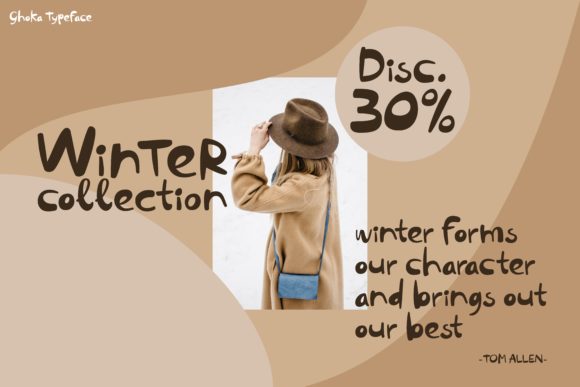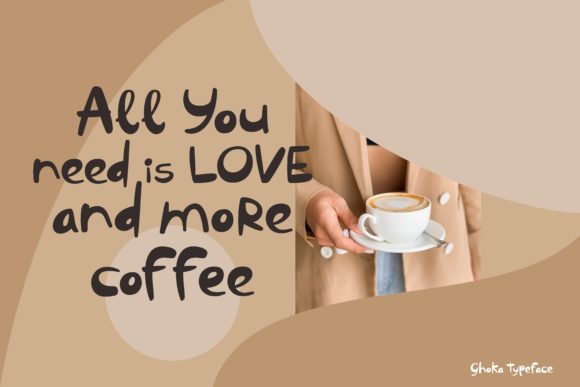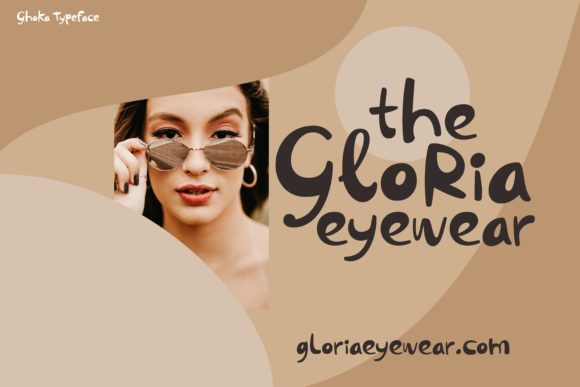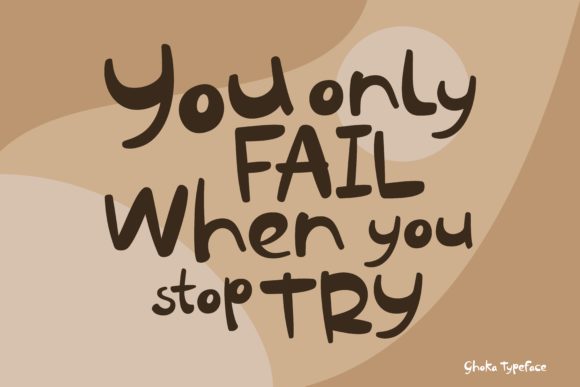
Gokha Font
About Gokha Font
Gokha is a weird, bold and playful script that’s both whimsical and serious. Get inspired by its contemporary approach to design.